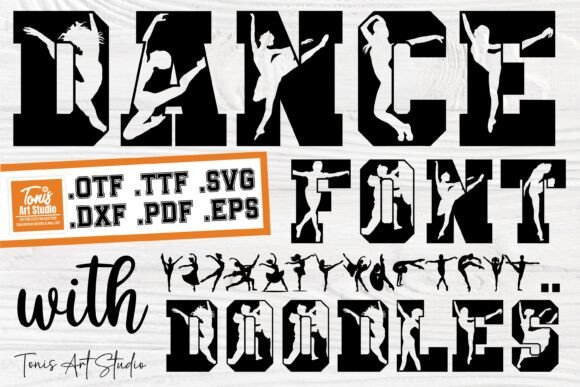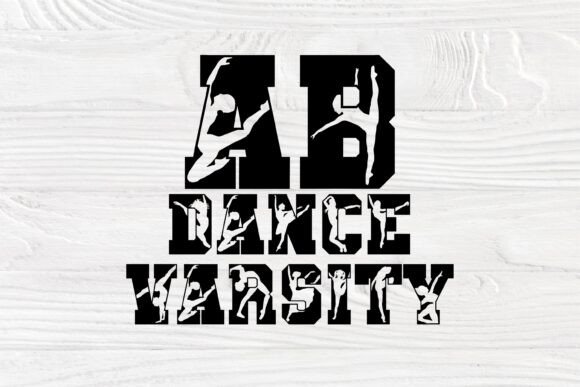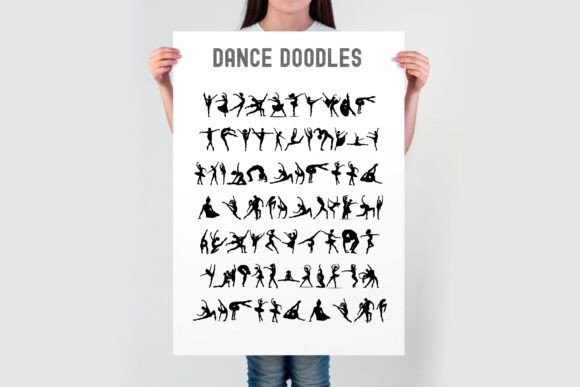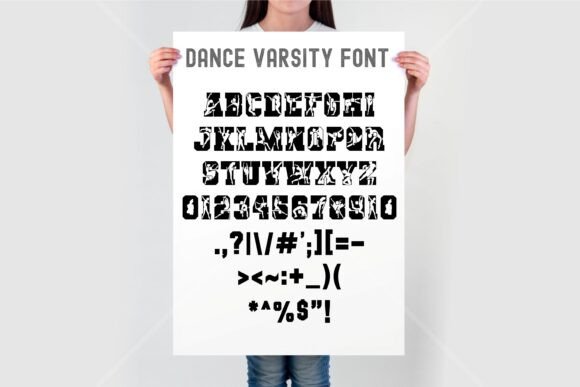
Dance Varsity Font
About the Dance Varsity Font
The wait is over! The incredible Dance Varsity Font is now available for your design toolkit. Dance Varsity is a cool decorative font exuding the spirit of youthful energy and athleticism. With bold, dynamic letterforms reminiscent of varsity sports jerseys, it captivates attention and injects a sense of excitement into designs, perfect for logos, posters, and branding projects with a vibrant, spirited vibe.
Its bold, condensed forms make it ideal for headlines, short impactful phrases, and logos requiring strong visual presence. It excels in posters, branding for sportswear or energetic brands, and packaging where a youthful, dynamic feel is desired. However, its decorative nature makes it unsuitable for body text or longform content; readability suffers at smaller sizes.
Dance Varsity’s inherent energy is best complemented by pairings with clean sans-serif fonts like Open Sans or Lato for body text, creating a balanced contrast between headline and supporting information. For a more playful approach, consider a rounded geometric sans-serif such as Circular Std. A classic serif like Garamond could provide sophisticated contrast, grounding the energetic feel of Dance Varsity.
The font’s personality is undeniably bold and playful, conveying a sense of youthful exuberance and athletic competition. It’s a perfect fit for brands targeting a young, active demographic, suggesting speed, action, and a winning attitude.
Dance Varsity Font Usage Examples
Dance Varsity Font Example